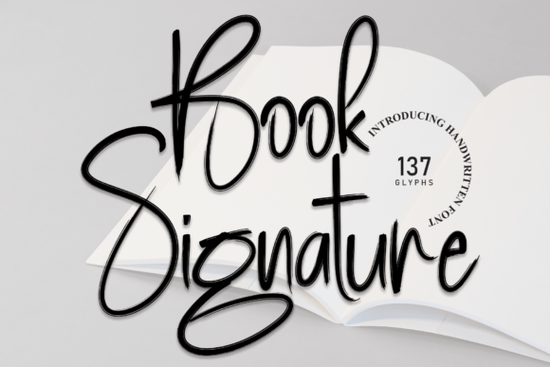
If you’re looking for a handwritten font that feels personal, graceful, and effortlessly stylish, the Book Signature Font might be exactly what your next project needs. It’s designed with flowing strokes and balanced letterforms, making it feel like real handwriting the kind you’d find in a cherished journal or a heartfelt note. Whether you’re designing wedding invitations, branding materials, or printable wall art, this font adapts without losing its charm.
It works especially well in projects where warmth and personality matter think greeting cards, book covers, Etsy shop logos, or even packaging for handmade goods. The curves are soft but intentional, never messy, so readability stays high even at smaller sizes. And because it’s so versatile, you won’t need to switch fonts every time you change your design theme.
What kinds of projects is Book Signature best for?
This font shines when you want to add a human touch. Here are just a few examples:
- Wedding stationery menus, place cards, save-the-dates
- Small business branding boutique logos, café chalkboards, product labels
- Print-on-demand products mugs, tote bags, journals with inspirational quotes
- Personalized gifts engraved wood signs, custom bookmarks, framed quotes
- Digital planners or stickers for those who love hand-lettered aesthetics
Because of its clean flow, it pairs beautifully with simpler sans-serif fonts for contrast. Try using it as a headline with something like Masterday for body text if you’re going for a modern-meets-handwritten vibe.
How does it compare to other script fonts on Creative Fabrica?
Not all script fonts are created equal. Some feel stiff, others too wild. Book Signature finds that sweet spot elegant without being fussy, casual without looking sloppy.
If you’ve used Country Kitchen, you’ll notice Book Signature has a more refined, less rustic energy. It’s also more fluid than Christmas or Christmas Lights, which lean into holiday-specific styling. For romantic or sentimental projects, it holds its own next to Soulmate, though it’s a bit more neutral and adaptable for everyday use.
Does it include special characters or multilingual support?
Book Signature comes with standard punctuation, numerals, and basic accented characters for Western European languages. It doesn’t include full Cyrillic or extended Latin sets, so if you’re designing for global audiences, double-check that the characters you need are included.
For most English-speaking designers and sellers, though, it’s more than enough. You’ll get uppercase and lowercase letters, plus common symbols like &, @, and # all styled to match the font’s natural rhythm.
Any tips for getting the most out of this font?
A few quick ideas to help your designs feel polished:
- Use tracking (letter spacing) sparingly. This font already flows well adding too much space between letters can break its natural rhythm.
- Try pairing it with texture. A subtle paper grain or watercolor background enhances its organic feel.
- Scale it large for impact. Because the strokes are delicate, it looks especially beautiful when used as a headline or focal point.
- Avoid heavy effects. Drop shadows or thick outlines can muddy the fine details. Keep it light and airy.
Where should I start if I’m new to using script fonts?
Start simple. Pick one phrase maybe a name, quote, or tagline and set it in Book Signature. See how it feels. Then try adjusting the size or color. Add a plain background. Notice how the elegance comes through even in minimal layouts.
Once you’re comfortable, experiment with layering it over photos or combining it with a complementary font like Masterday for contrast. Don’t rush. Let the font’s personality guide your layout instead of forcing it into a rigid grid.
Whether you’re making something to sell or just creating for joy, Book Signature adds a quiet grace that’s hard to replicate. Sometimes, the simplest tools like a well-made font are the ones that make the biggest difference.